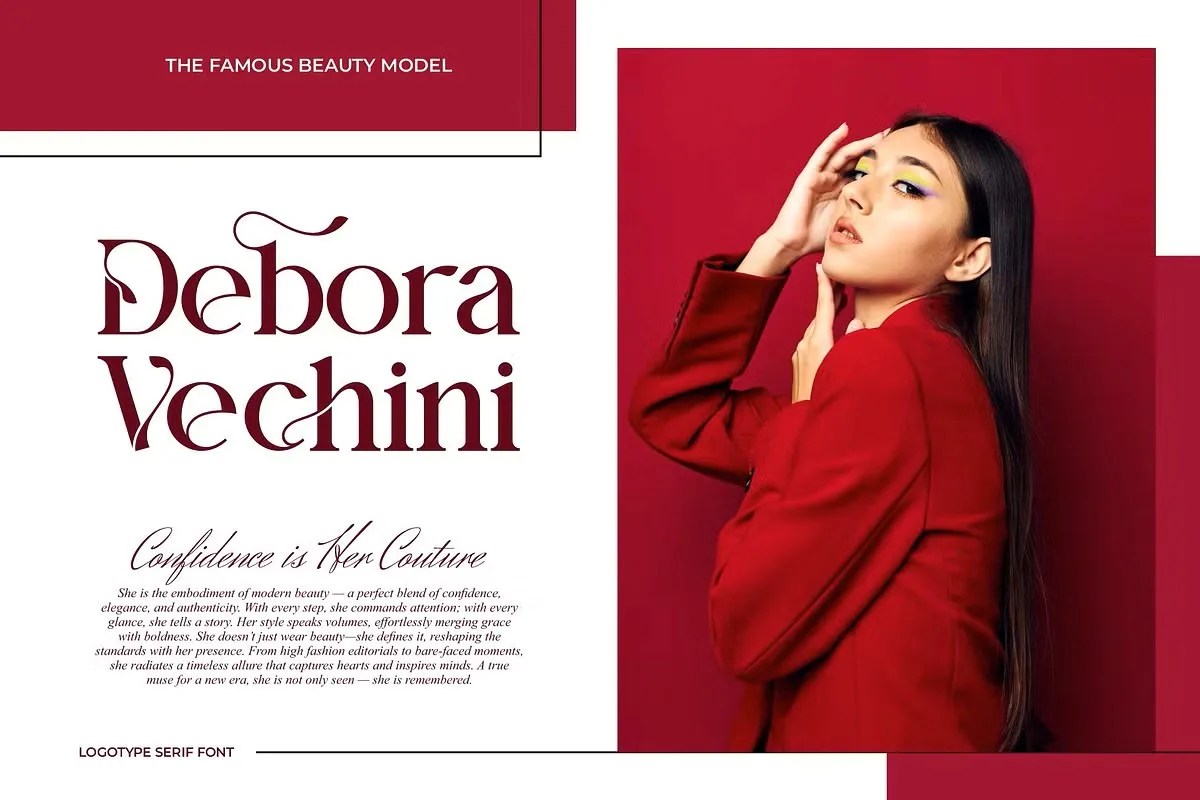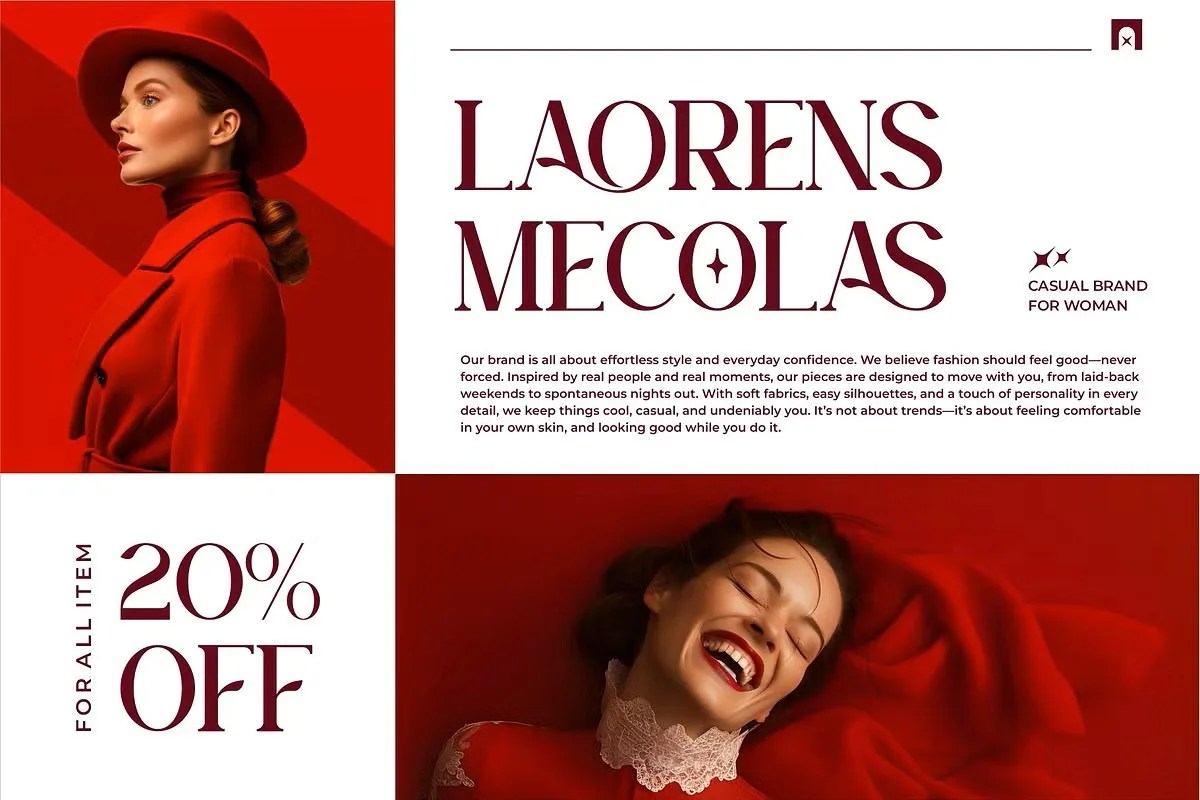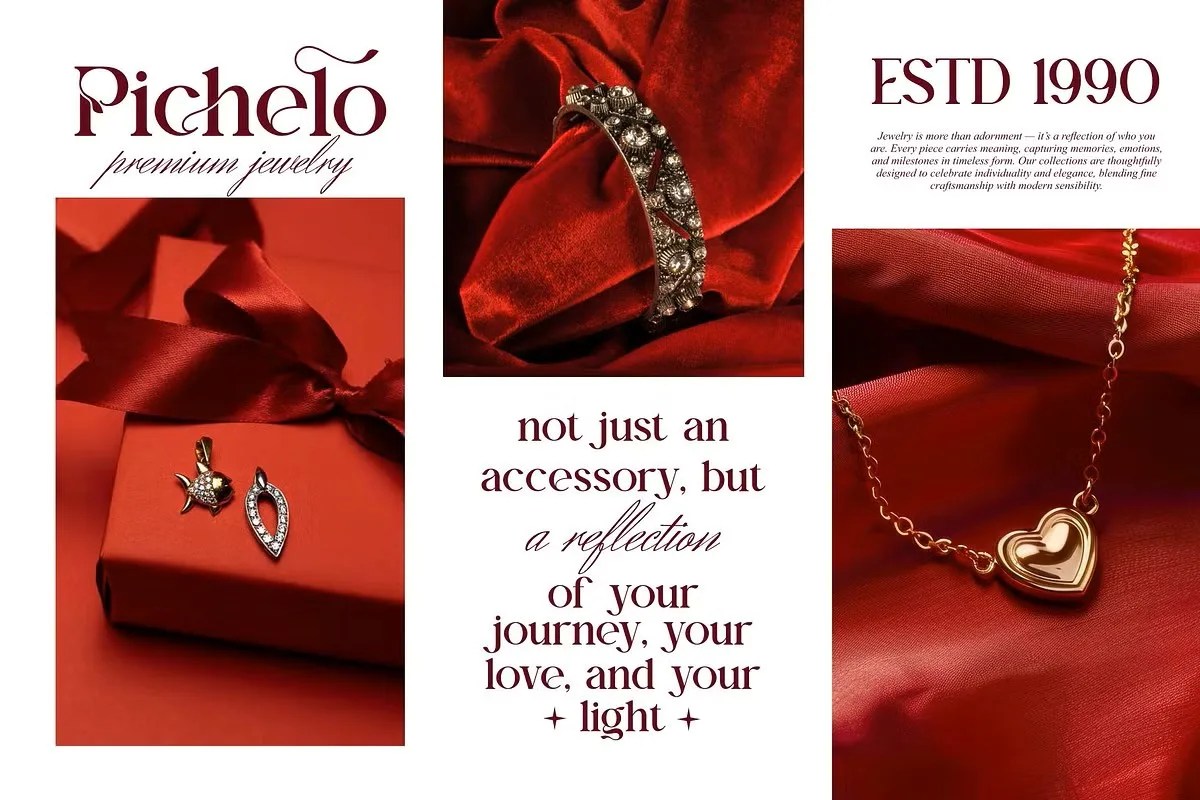
Asveda by Idea Studio. This is a truly classic serif font that embodies wisdom and elegance. Its design draws inspiration from the pages of timeless literature and scholarly texts. The font speaks with a quiet authority and a deep respect for tradition. Idea Studio created Asveda for projects that require a touch of intellectual grace and effortless clarity. It brings a distinguished character to every word.
This font is a natural choice for any text-heavy project. Specifically, its excellent readability makes it ideal for the body copy of books, journals, and long-form web articles. It allows your message to shine without typographic distraction. Furthermore, this classic serif font is a powerful choice for institutional branding. A university, a law firm, or a historical society could use Asveda to communicate stability and intellectual rigor. It adds instant credibility and a sense of heritage to any design.
• Timeless and classic serif style
• Designed for high readability
• Ideal for books, editorial, and academic branding
• Adds a touch of wisdom and elegant